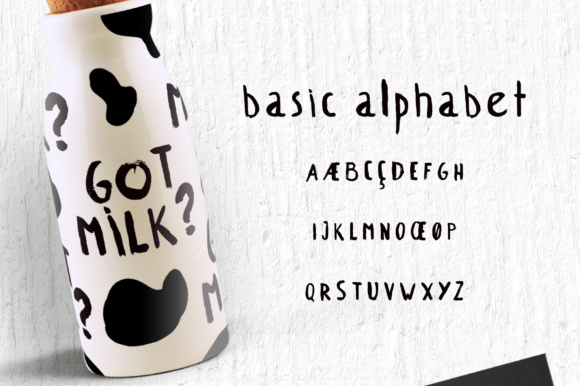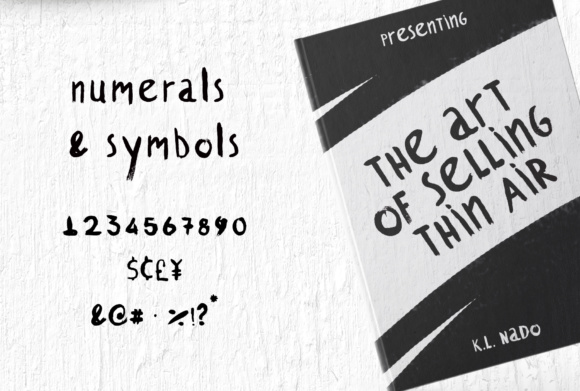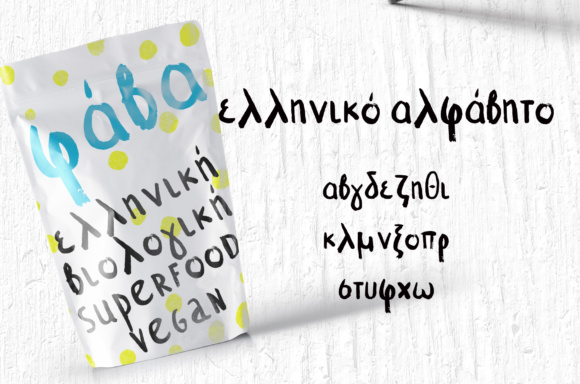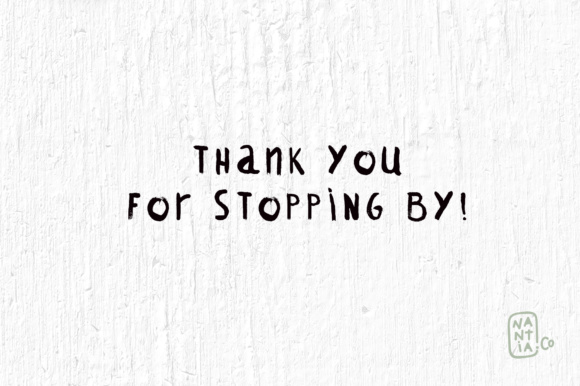
Nado Font
About Nado Font
The Nado is a 100% hand drawn, decorative font with which you can achieve a handwritten lettering feel. It has a nice flow which makes it perfect for large texts if you want to add a touch of personality to your design.
The shabby-chic style of this dry brush font is perfect for your graphic design needs like social media quotes, blog headers, posters, and much more!